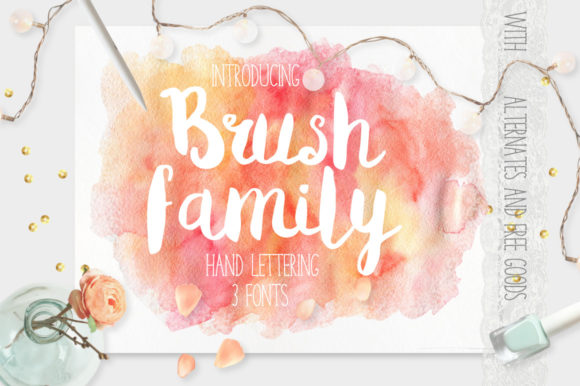
Introducing the Brush Family Font: A Trio of Hand Lettering Watercolor Fonts
Have you ever been in the middle of a design project, and suddenly, you’re stuck searching for the perfect font? I know I have! 😩 It was a few months ago when I was working on a whimsical poster design for a local craft fair. My client wanted something that felt handmade and unique, but I just couldn’t find the right fit. That’s when I stumbled upon the Brush Family Font, and it completely transformed my design. In this article, I’ll share my experience with this beautiful font family and provide a comprehensive guide on how to use it.
The Brush Family Font: What You Need to Know
The Brush Family Font is a collection of three hand lettering watercolor fonts: Crispy, Ah-Punch, and Confetti. Each font comes with alternate letters and a set of free elements, making it perfect for a variety of design projects, from t-shirt designs and invitations to posters, postcards, and branding materials.
- Crispy: A hand-drawn watercolor brush font with a rustic feel.
- Ah-Punch: A hand lettered calligraphy-type script with alternate letters.
- Confetti: A casual brush painted font with a playful vibe.
- Unique, handmade feel that’s perfect for designs that require a personal touch.
- Alternate letters and glyphs add variety to your designs.
- Some fonts may require manual kerning for optimal spacing.
- Limited use on very small scales (e.g., body text) due to the hand-painted nature.
- Not ideal for very formal or corporate designs.
The Designer Inspiration Behind the Brush Family Font
The Brush Family Font was created by Julia, a talented designer with a passion for hand lettering and watercolor art. Julia’s inspiration for the font came from her love of traditional watercolor painting and her desire to create a font that felt handmade and unique. The result is a beautiful collection of fonts that are perfect for designers, crafters, and creative hobbyists.